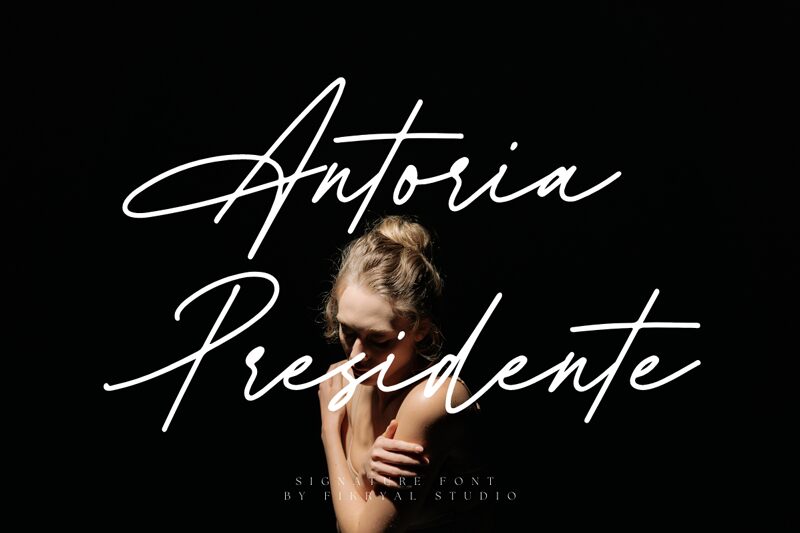
Antoria Presidente
Antoria Presidente font, designed by Fikryal Studio, captures the essence of elegance and personalization with its handwritten signature style. This light font embodies a graceful flow, accentuating each letter with exquisite curves that evoke a sense of warmth and approachability.
Visually striking yet refined, Antoria Presidente invites creativity in various design contexts. Its whimsical charm makes it an ideal choice for wedding invitations, branding projects, or personal notes where a personal touch is essential. Whether used in digital media or print formats, this font radiates sophistication and flair, seamlessly blending artistry with readability to elevate any project.